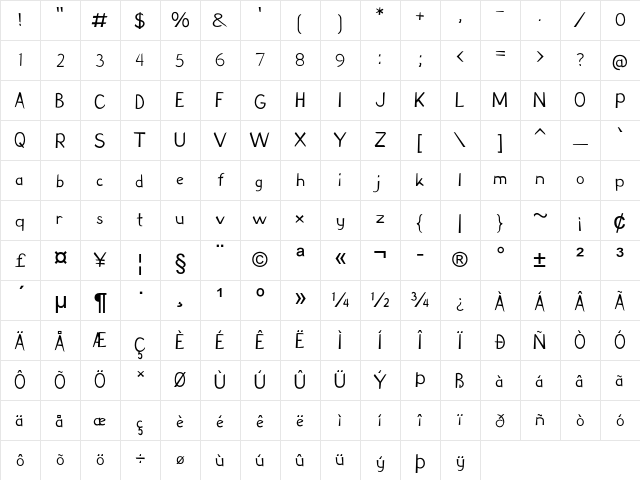
Pumpernickel Regular Free Font
Pumpernickel Regular
Design Context for Pumpernickel
Pumpernickel is a composed and adaptable typeface that performs quietly and consistently across a wide range of design contexts.